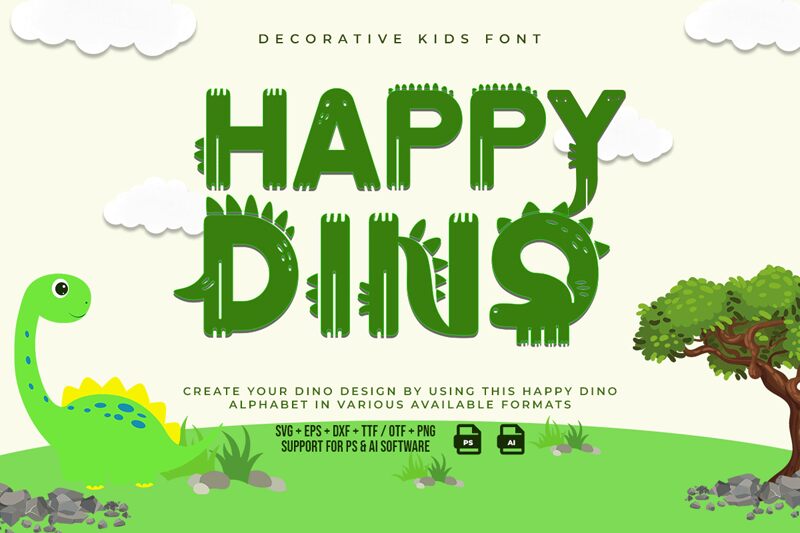
Happy Dino font by Kong Font is a quirky decorative display font with dinosaur-themed elements. Letters are playful, thematic, and eye-catching making this an incredibly fun resource in all your creative projects. Its child-friendly appeal is achieved through differently shaped glyphs easily capturing the attention of any audience.
The free decorative font can be used in themed logos, covers of children oriented books and magazines, games and toy packaging designs, birthday cards or party invitations among others. Enrich your websites with Happy Dino typeface for a more vibrant and cheerful outlook!